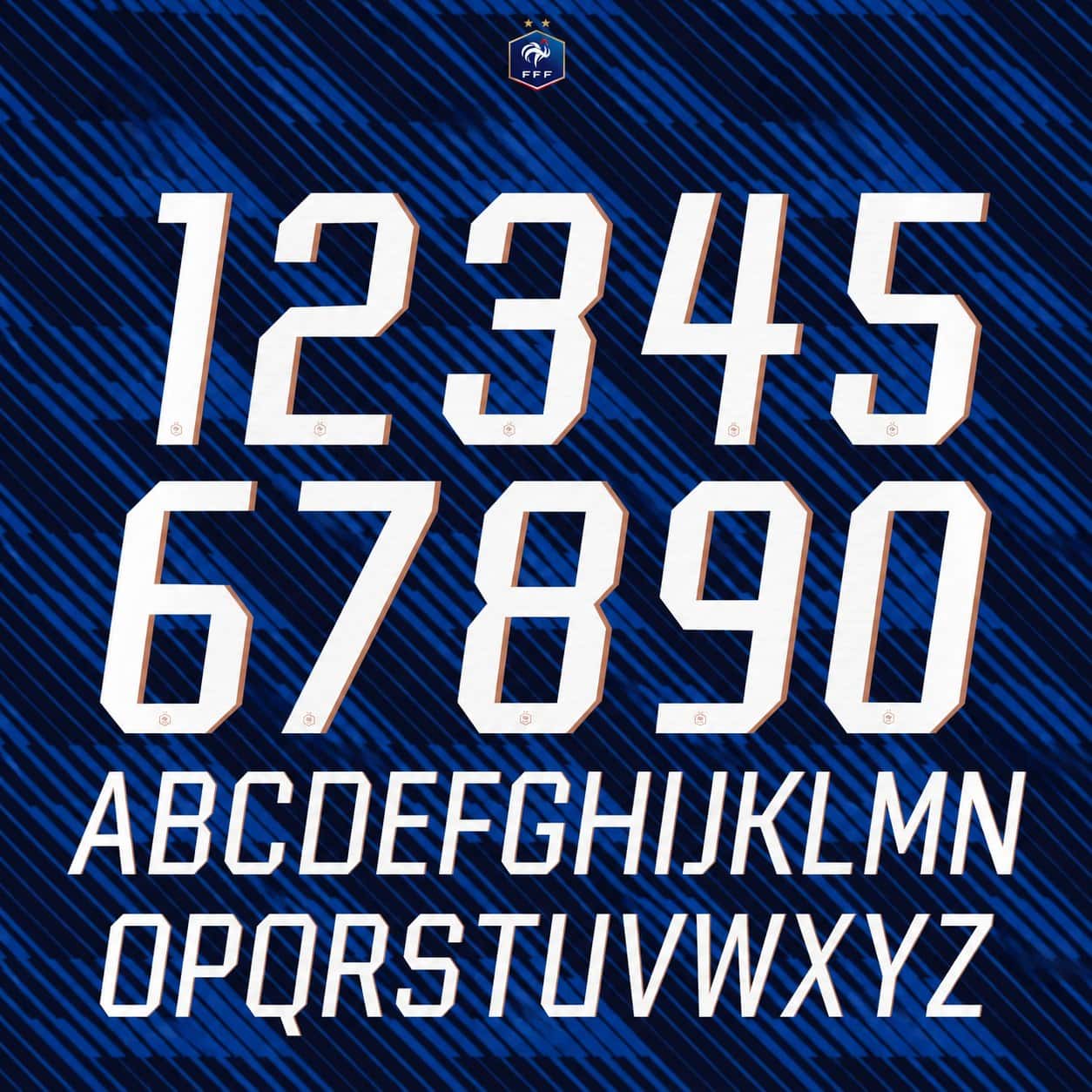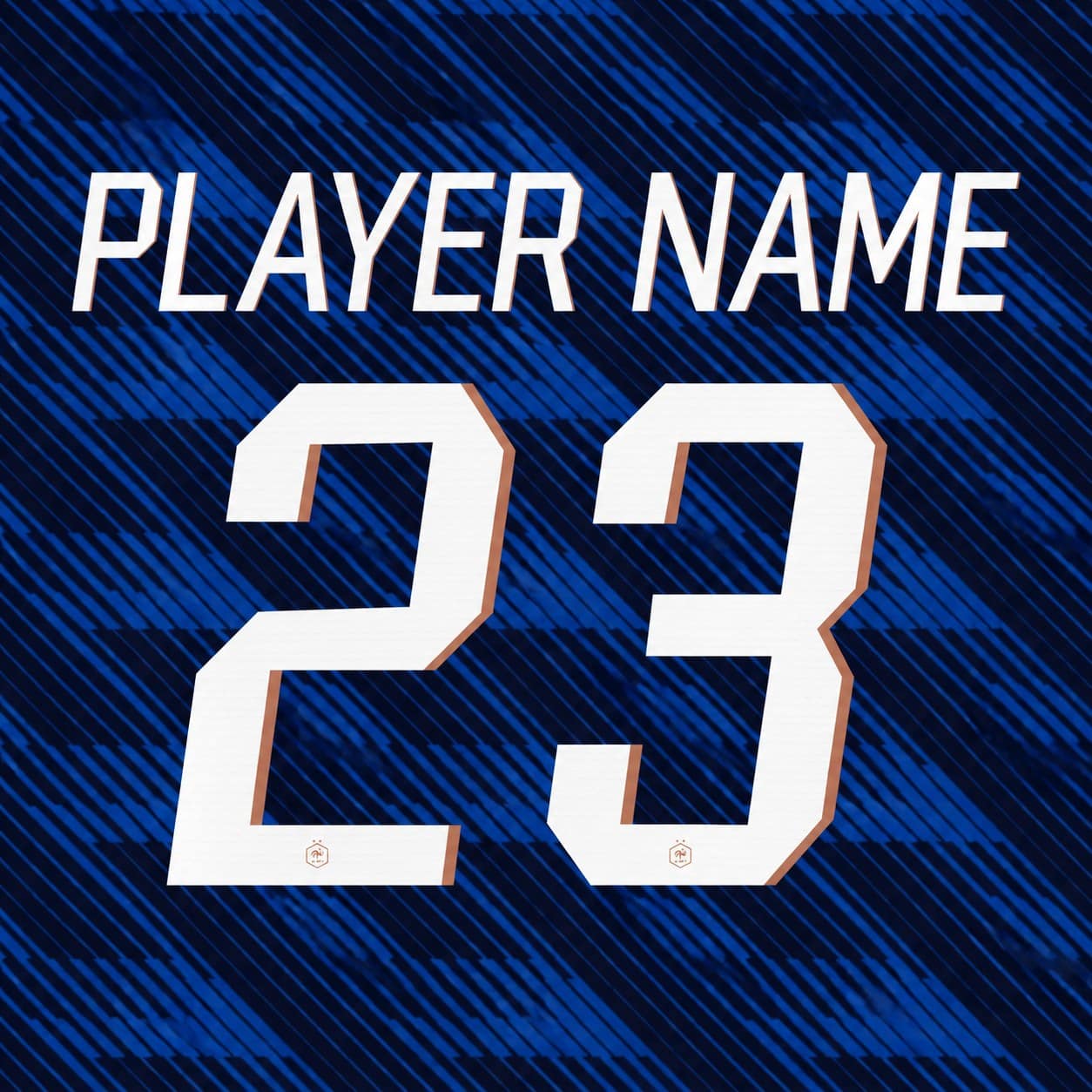
Complete France World Cup 2026 home font set — every letter and every number in one kit, in the lettering style of the 2026 national team home shirt, white colourway as shown.
- Full set included: all letters A–Z + all numbers 0–9, exactly as shown
- Fine crest detailing inside the numbers